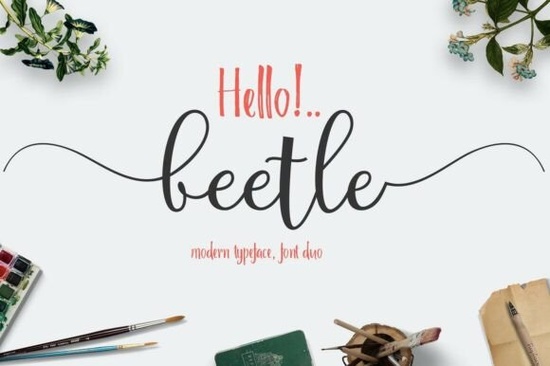
If you're looking for a font duo that blends playful elegance with practical versatility, the Beetle Duo Font might be exactly what your next project needs. Designed as a complementary pair Beetle (a flowing monolinear script) and Rantes (a tall, condensed sans-serif marker style) this set gives you two distinct voices in one package. Whether you’re designing artisanal product labels, floral packaging, or branding for a small creative business, this duo helps you balance personality with clarity without starting from scratch.
The real strength of Beetle and Rantes lies in how well they work together. Use Beetle’s sweeping swashes for headlines, logos, or featured text where you want to convey warmth and artistry. Then switch to Rantes for supporting details like ingredients, dates, or instructions its clean lines keep things readable while still feeling handcrafted. This contrast creates visual hierarchy naturally, so your designs feel intentional rather than cluttered.
Who is this font duo best suited for?
This typeface set shines in contexts where “handmade” charm meets professional polish. Think:
- Small food or skincare brands creating custom labels
- Wedding stationery designers who want elegant but legible typography
- Print-on-demand sellers crafting mugs, tote bags, or greeting cards with personality
- Crafters and hobbyists making personalized gifts or home decor
What makes this duo “smart” for layout design?
Unlike many decorative fonts that look great but limit usability, Beetle and Rantes are built with practicality in mind. Both fonts support PUA (Private Use Area) encoding, which means all alternate characters, swashes, and ligatures are accessible directly through design software like Adobe Illustrator, Photoshop, or even Canva (with OpenType support). You don’t need plugins or workarounds just select the glyph you want from your character panel.
Because Rantes is tall and narrow, it saves horizontal space ideal for narrow product jars, vertical banners, or social media graphics. Meanwhile, Beetle’s extended swashes add drama without overwhelming when used sparingly. Try pairing them in a quote graphic: Beetle for the quote itself, Rantes for the author credit below. The result feels curated, not chaotic.
How does it compare to other script-and-sans pairings?
Many font duos pair a script with a basic sans-serif that feels generic. Beetle and Rantes were designed together, so their proportions, x-heights, and stylistic rhythms align. Rantes isn’t just a fallback it has its own personality, with subtle marker-like texture that echoes Beetle’s hand-drawn roots.
If you enjoy the organic flow of handwriting-style scripts but need something more structured for body text, this duo bridges that gap. And unlike ultra-thin or overly ornate scripts (like some in our curvy tracing fonts collection), Beetle remains legible even at smaller sizes thanks to its consistent stroke width.
Tips for using Beetle and Rantes effectively
- Less is more with swashes. Use them on the first or last letter of a word, not every letter.
- Adjust tracking on Rantes. Its condensed nature benefits from slight letter-spacing (+20 to +50) in short phrases.
- Avoid all caps in Beetle. It’s designed for lowercase and title case; uppercase letters lack swashes and feel abrupt.
- Pair with neutral colors. Soft creams, sage greens, or muted terracottas let the typography shine without competing.
And if you’re building a brand identity, consider using Beetle only for logos or hero text, and Rantes for everything else menus, tags, website headers. Consistency builds recognition.
Quick checklist before you use Beetle Duo Font
- ✅ Test readability at your intended size especially for product labels
- ✅ Use Rantes for any text that needs quick scanning (prices, dates, etc.)
- ✅ Limit Beetle to 1–2 words per design unless it’s a poster or invitation
- ✅ Save a style guide: define when to use each font so your branding stays consistent